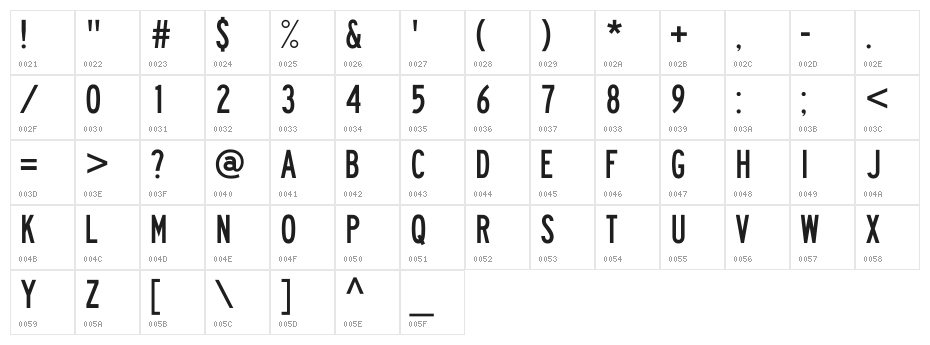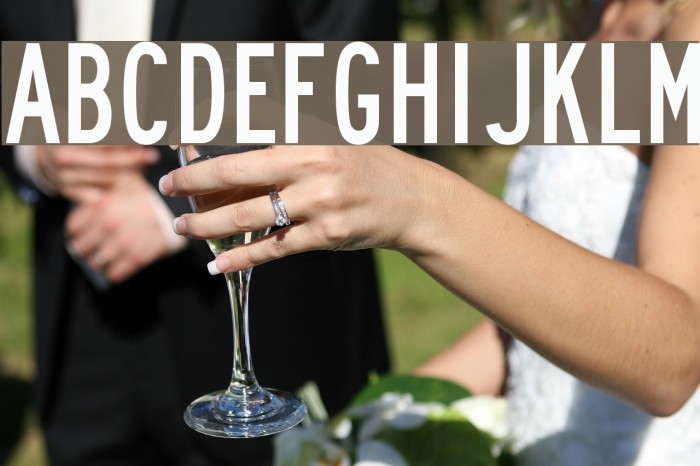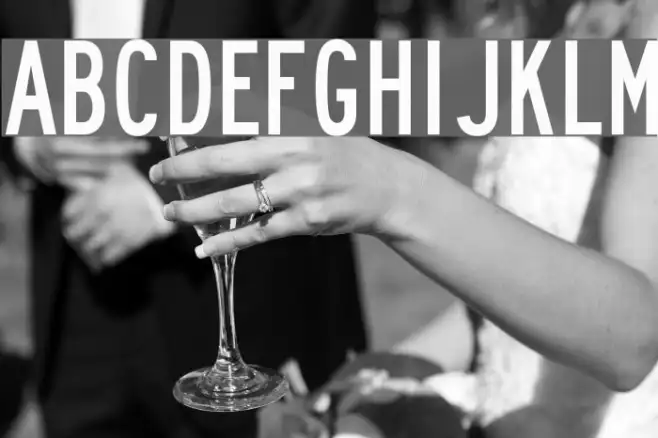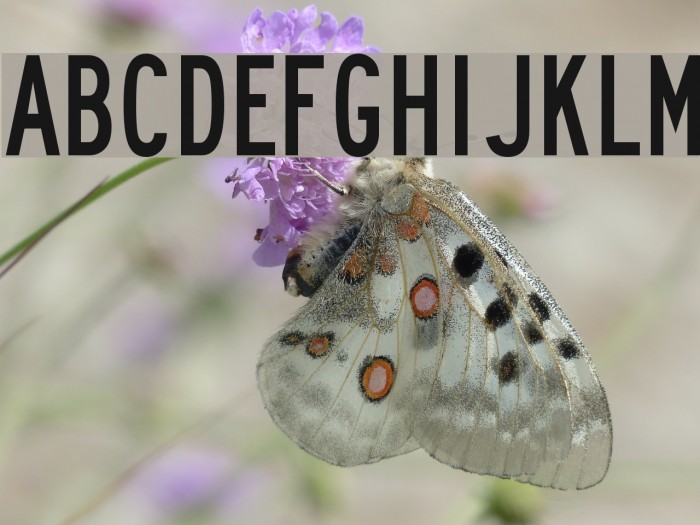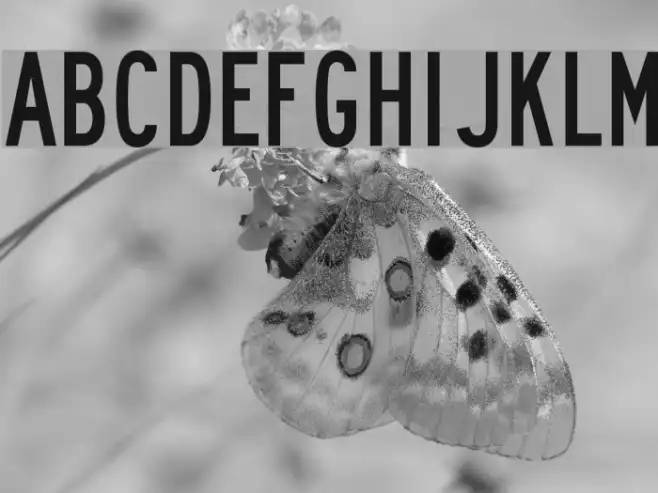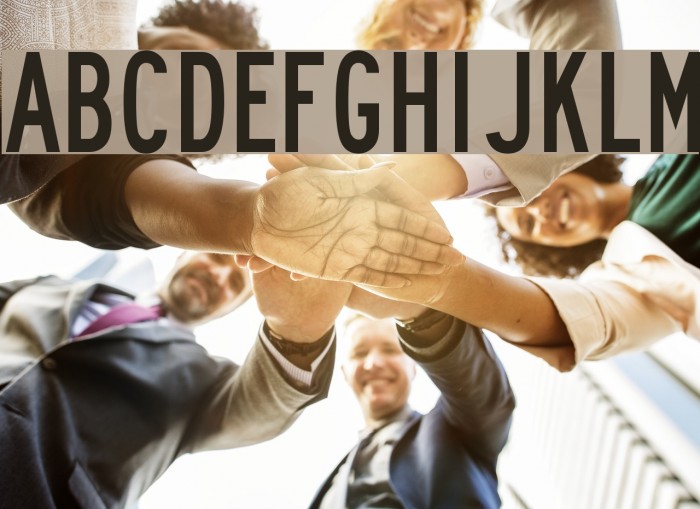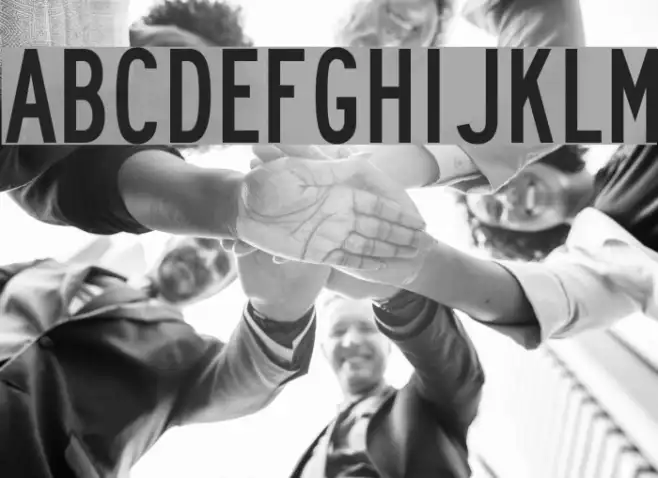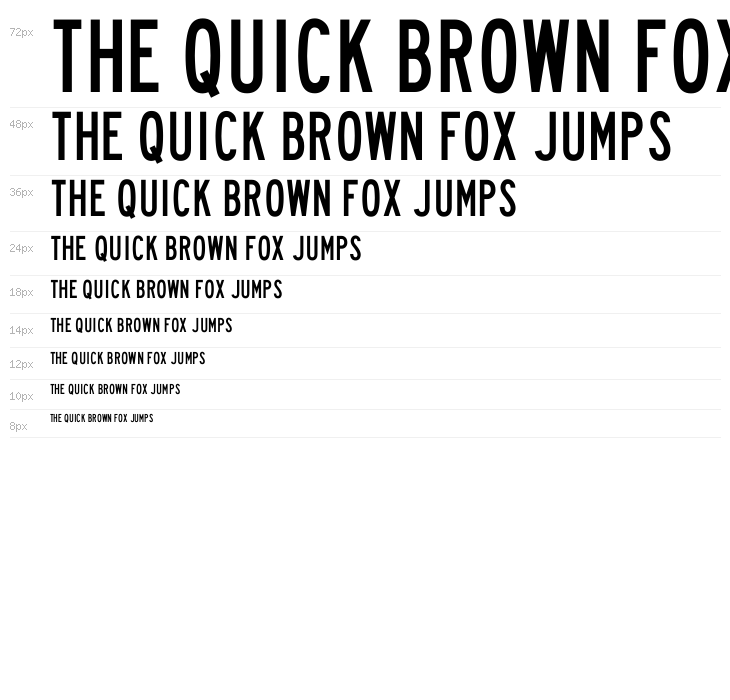
Lane A Font
Lane A Description
This font features a bold and modern sans-serif design with clean, straight lines and uniform stroke widths. The characters are tall and narrow, giving a condensed appearance that maximizes vertical space. The uppercase letters are particularly striking, with a strong presence that commands attention. The numerals are clear and easy to read, maintaining the same boldness as the alphabetic characters. Special characters are included, offering versatility for various design needs. Overall, this font exudes a contemporary and professional feel, suitable for a wide range of applications.
| Proposed Projects | Ideal for branding, advertising, headlines, posters, and any project requiring a strong visual impact. |